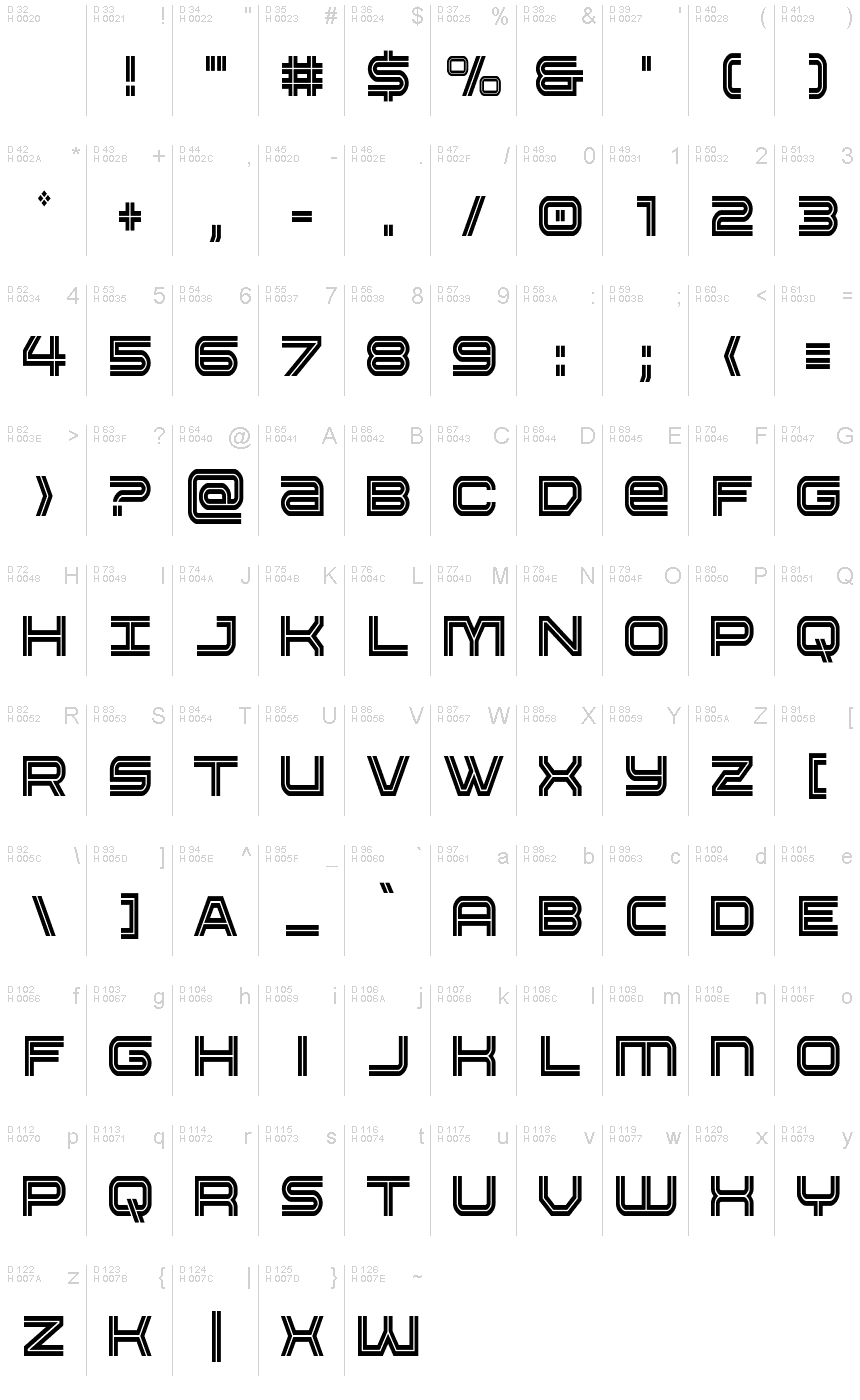
Gran Torino Condensed
Gran Torino Condensed is a wide, techno display font designed by Daniel Zadorozny. Its strong, bold lines and geometric shapes make it ideal for modern tech projects, fashion labels, and attention-grabbing logos.